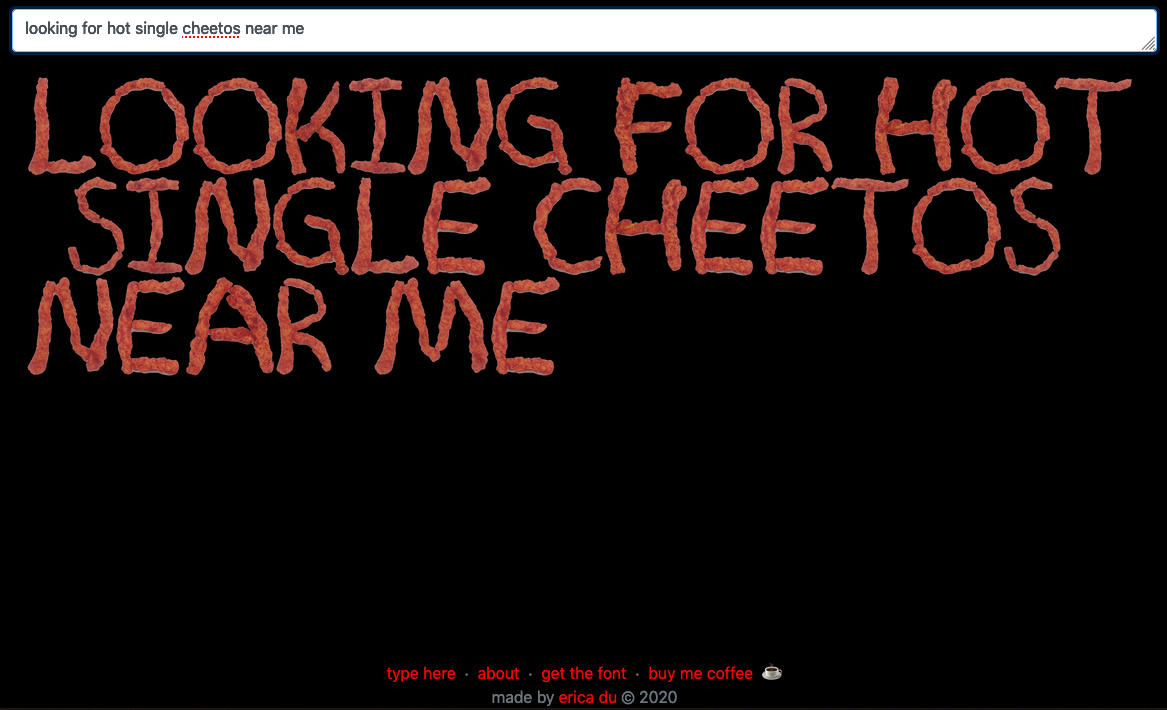
Hot Cheetos Font
Flamin' hot cheetos as a font.
Say what you want to say in Hot Cheetos Font, the font you didn't know you needed. Alphanumeric characters and select punctuation marks supported (exclamation, period, comma, question, single quote, dash). More character support andttf coming soon.